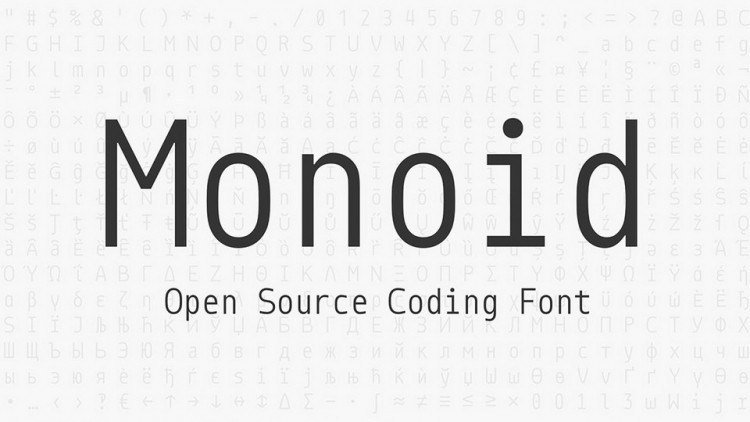
Monoid Font Family
Monoid is a monospaced typeface customizable and optimized for coding with bitmap-like sharpness at 12px/9pt even on low res displays.
Monoid comes in regular, bold, oblique and retina versions with >750 latin, greek, cyrillic, ligature, alternate and Powerline glyphs.
Semi-condensed and distinguishable glyphs with short ascenders + descenders, big apertures and supersized operators + punctuation.